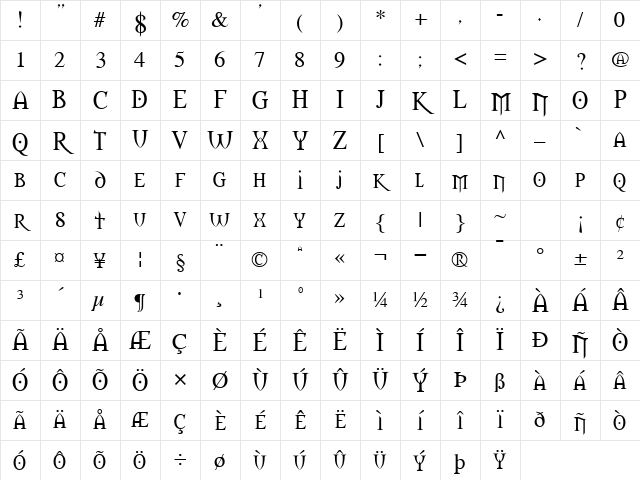
Morpheus Regular Free Font
Morpheus Regular
Design Context for Morpheus
Morpheus is a composed and adaptable typeface that performs quietly and consistently across a wide range of design contexts.